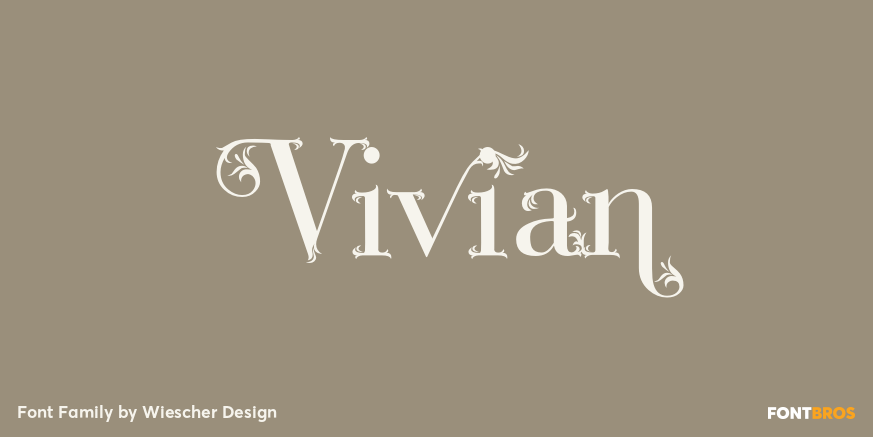
Vivian
About Vivian
Vivian is a heavily decorated serif typeface based on my Bodoni Classic font. I have this flaw in my personality that just enjoys designing decorative typefaces. I made three cuts. First: the straightforward Vivian with nicely decorated capitals and…